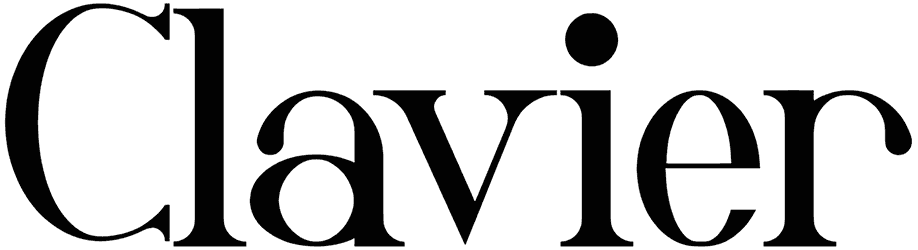
Clavier Font
Clavier has a bold, clear, and exciting tone that encourages designers to add it to the collection even though the serif font section is entire. The 2 styles of this standard newspaper font look very interesting for both titles and body text to create a nostalgic and classic feeling.
Designers in favor of standard projects that are tired of decorative fonts, even with the absence of numbers, go to this option in the RB library to diversify readers’ eyes and their contents.